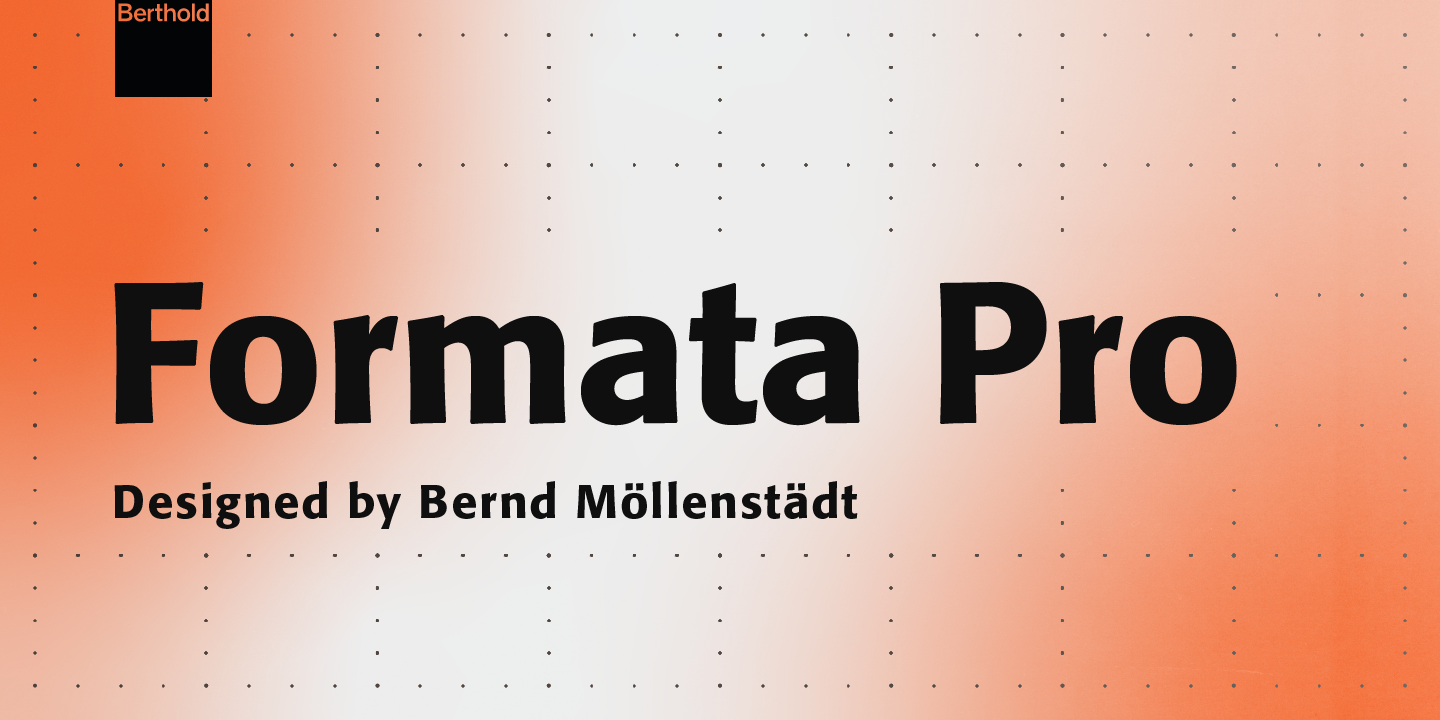
Formata Font is ideal for corporate annual reports, technical documentation, professional presentations, engineering manuals, scientific publications, government documents, institutional communications, and business correspondence. This reliable sans-serif typeface brings systematic organization and professional clarity to any project requiring structured, highly readable typography with authoritative presence.
What makes Formata Font exciting is its exceptional ability to organize complex information with crystal-clear hierarchy while maintaining professional warmth and approachability. The font features optimized letterforms with generous spacing and carefully balanced proportions that ensure effortless reading comprehension in dense text environments. Its structured design philosophy and consistent character relationships create visual order that helps readers navigate complex documents efficiently, making it perfect for organizations that handle technical information, regulatory compliance, or detailed communications requiring absolute clarity. The typeface's systematic reliability ensures consistent professional presentation across all applications.
The Formata Font family includes Light, Regular, Medium, Bold, and Condensed weights, each designed to support comprehensive document hierarchies and information organization systems. The family offers extensive language support, technical symbols, mathematical notation, and professional ligatures that enhance its versatility for international business and scientific applications. These variants provide complete flexibility for creating structured communications that prioritize information accessibility.
Whether you're designing technical documentation, corporate communications, or institutional materials, Formata Font Free Download delivers the organizational excellence that defines professional information design. Its combination of systematic clarity and human-centered readability makes it perfect for communicating complex information, regulatory compliance, and institutional authority with authentic professional-grade typography and reliable organizational sophistication.